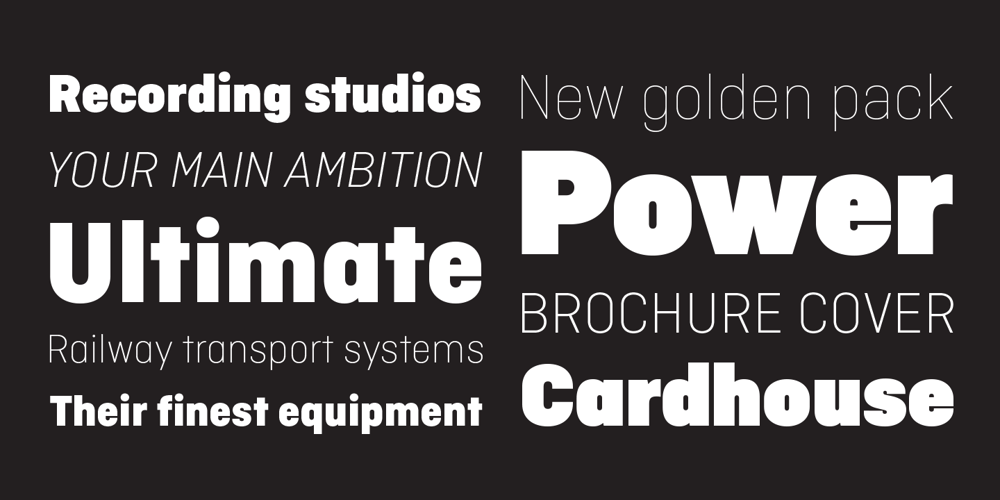
Ciutadella Display
Ciutadella Display font
Ciutadella Display Font Family was designed by Eduardo Manso and published by Emtype Foundry. Ciutadella Display contains 12 styles and family package options. Ciutadella Display is the extreme partner of the popular Ciutadella family for use in large sizes. The weight has been taken to the limit in both directions. It is available in Open Type format and includes Alternate Characters, Ligatures, Tabular Figures, Fractions, Numerators, Denominators, Superiors and Inferiors. It supports Central and Eastern European languages. The type family consists of 12 styles, 6 weights (Thin, UltraLight, ExtraBold, Black and UltraBlack) plus italics, creating an expanded and really flexible system. See also the original Ciutadella, Ciutadella Rounded and Ciutadella Slab.